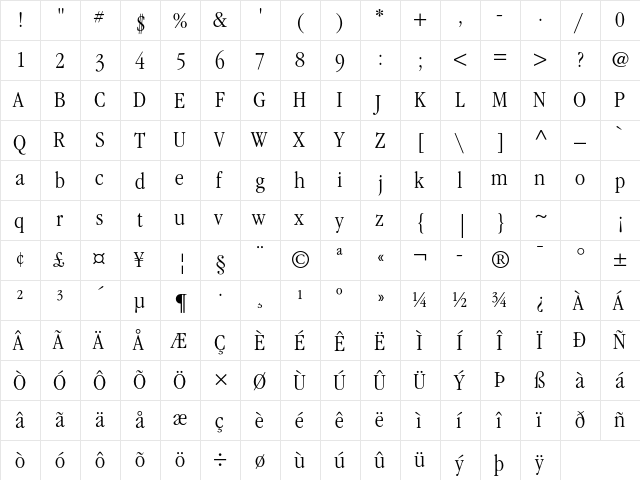
ITC Garamond Std Light Narrow
| Designer | Tony Stan |
Design Context for ITC Garamond Std Typeface
ITC Garamond Std is a composed and adaptable typeface that performs quietly and consistently across a wide range of design contexts. The delicate stroke weight brings airiness and refinement to layouts. Its narrow stance lets it pack a punch even in space-constrained designs.